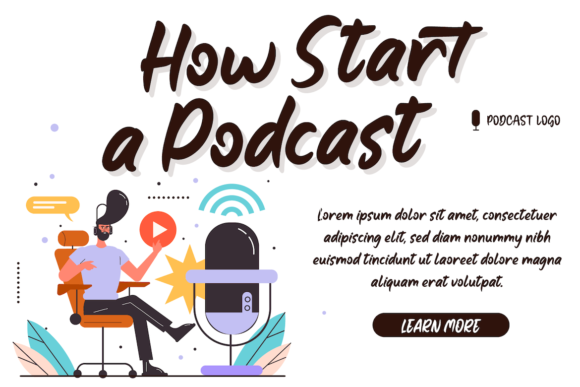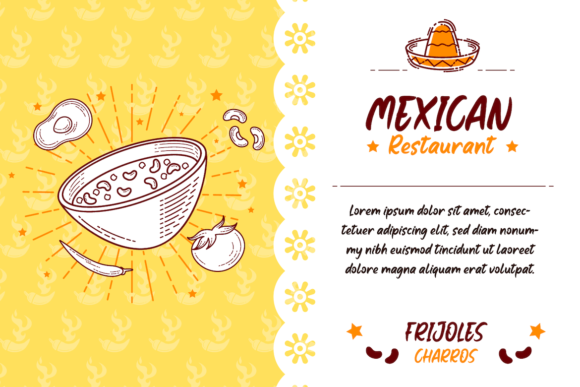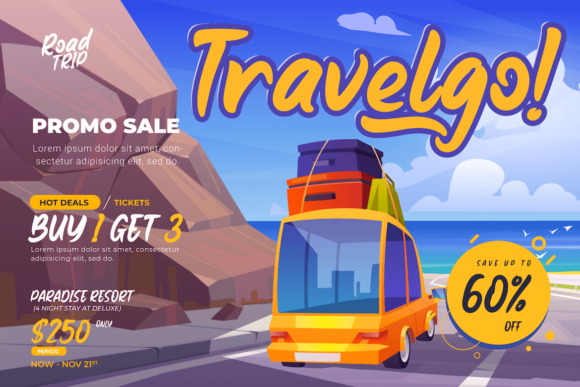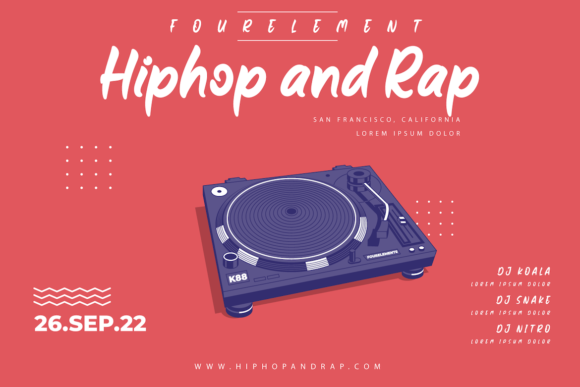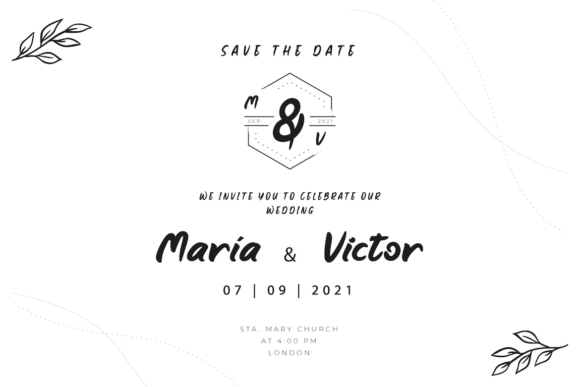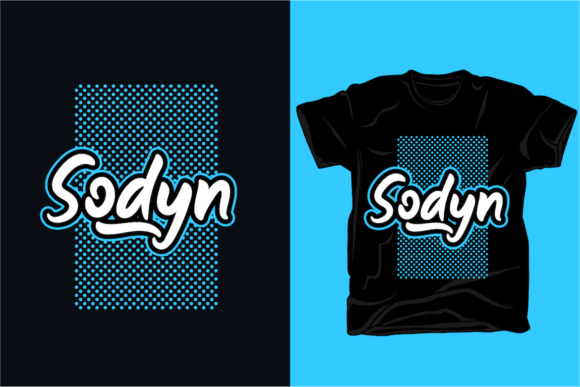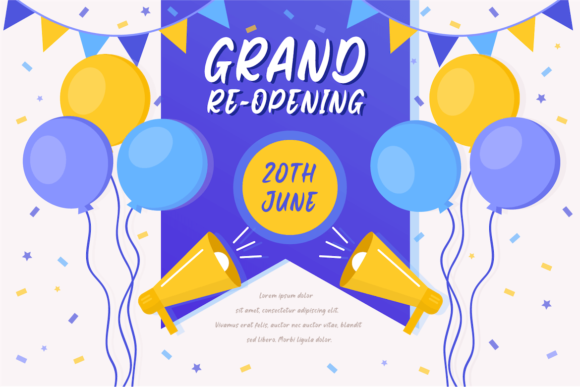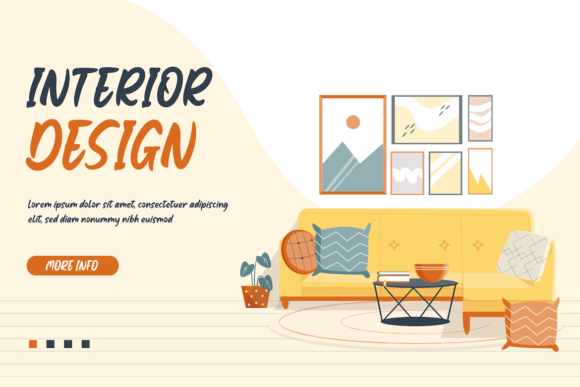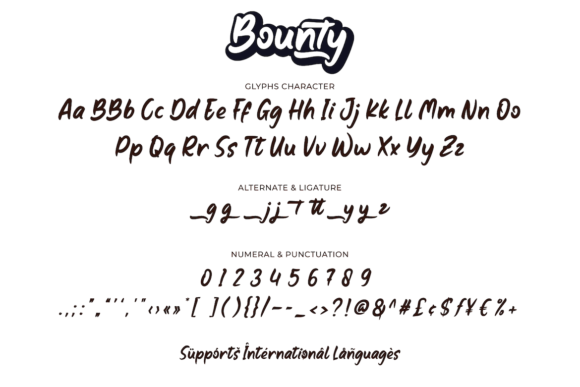
Bounty Font
About Bounty Font
Bounty is a jolly and trendy paint brushed handwritten font. It has a modern yet whimsical style and it will undoubtedly immerse your designs into a magical world.